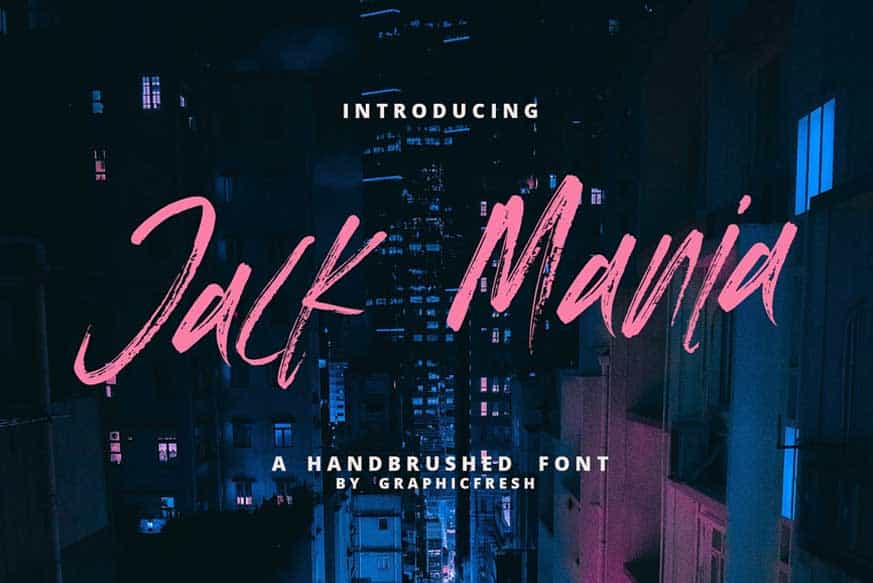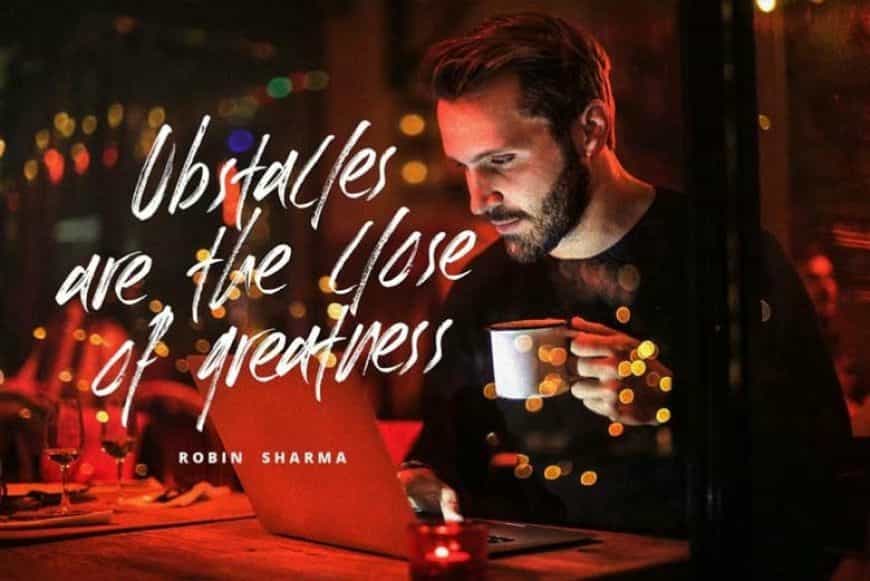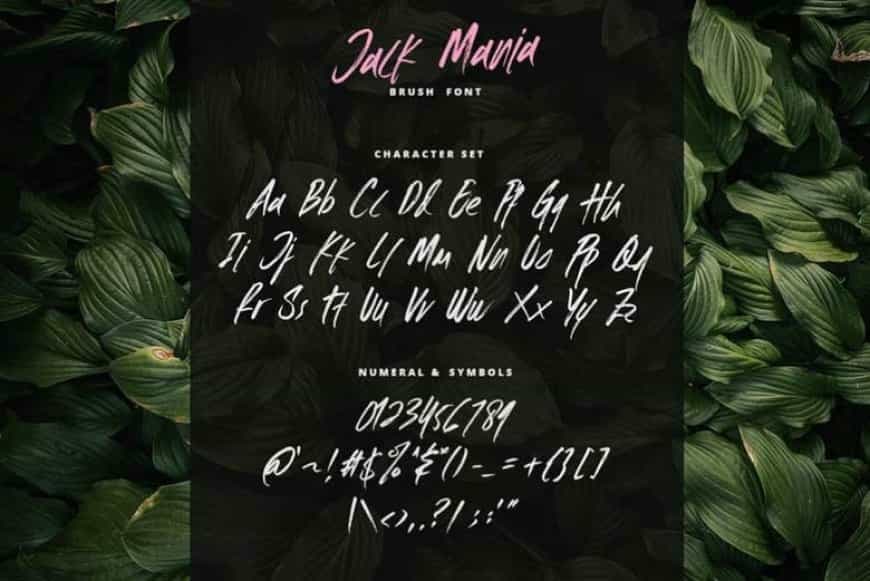
Discover Jack Mania Font, part of the Brush collection—a versatile and unique font perfect for adding a personal touch to your projects. Download it for free and enjoy crafting designs with style, from invitations to social media posts. This font is available exclusively for personal use, giving you the freedom to create without limits. Unlock your creativity with Jack Mania Font today!
Jack Mania is an sophisticated handwriting font with a twist. It stands out as something in the world of typography.